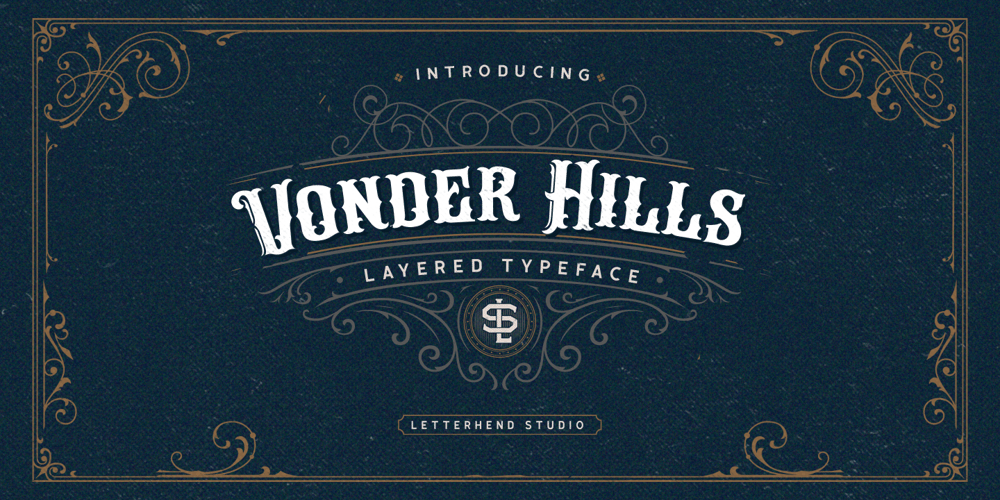
Vonder Hills Font Family was designed by Hendry Juanda and published by Letterhend. Vonder Hills contains 3 styles and family package options. Vonder Hills Layered Font Introducing, Vonder Hills . A layered typeface which is inspired by vintage lettering sign and art. While this font has a victorian touch, it still looks bold and solid. Very suitable for for headline, logotype, apparel, invitation, branding, packaging, advertising etc. It also comes in uppercase, lowercase, punctuations, symbols & numerals, stylistic set alternate, ligatures, etc also support multilingual and already PUA encoded. We highly recommend using a program that supports OpenType features and Glyphs panels like many of Adobe apps and Corel Draw, so you can see and access all Glyph variations.